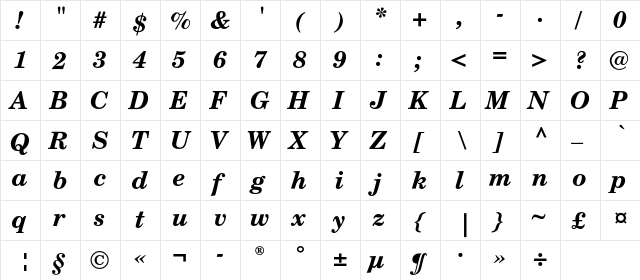
NewCenturySchlbk Cyr BoldItalic Regular
Design Context for NewCenturySchlbk Cyr BoldItalic Typeface
NewCenturySchlbk Cyr BoldItalic is a composed and adaptable typeface that performs quietly and consistently across a wide range of design contexts. Its italic angle brings a sense of urgency and motion to the letterforms. Its bold stroke weight gives it real presence on the page.
Pro Tip: Use NewCenturySchlbk Cyr BoldItalic for emphasis, pull quotes, and subheadings where its slanted energy can add rhythm to the layout.